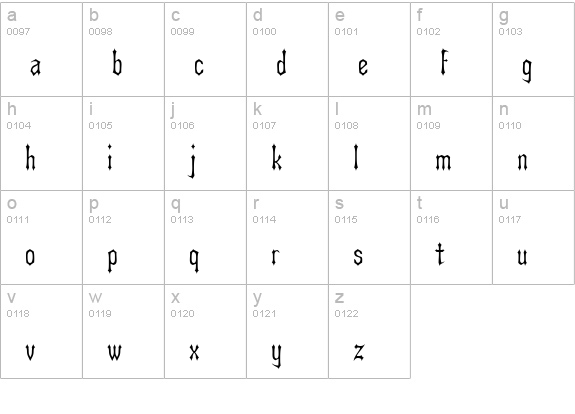
Asterx Font Details
Introducing Asterx font, a versatile and modern typeface that is perfect for a wide range of design projects. With its clean lines and elegant curves, Asterx font exudes sophistication and style. Whether you are creating a logo, website, or print materials, this font will add a touch of class to your work. What sets Asterx font apart is that it is not only beautifully designed but also free to use. Yes, you heard that right - Asterx font is freely available to download at FontsMarket.com. This means you can enhance your designs without breaking the bank. So why wait? Download Asterx font today and elevate your design projects to the next level with this sleek and stylish typeface.